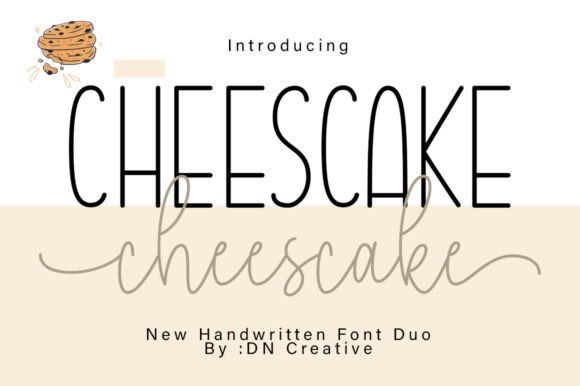
Introducing Cheescake Duo Font, the ultimate choice for those seeking the best font for tattoo script! Created by DN Creative, this stylish and delicate duo font (sans serif and script) will add a touch of romance to all your creative endeavors. With its wide spectrum of applications, from greeting cards to headlines, Cheescake Duo is the perfect companion for any project that needs a charming and captivating aesthetic.
What sets Cheescake Duo apart is its PUA encoding, which grants you seamless access to a plethora of amazing glyphs and ligatures. Unlocking an entire world of artistic possibilities, this font allows you to effortlessly elevate your designs and bring them to life in ways you've never imagined before.
Whether you're a tattoo artist looking to create mesmerizing script designs or a designer in search of a font that exudes elegance and allure, Cheescake Duo is here to fulfill your every need. Its versatility knows no bounds, making it an ideal choice for various occasions and styles.
With Cheescake Duo Font, you don't just download a font – you immerse yourself in a world of creativity, emotion, and endless possibilities. Let this font be your artistic companion, and watch your designs flourish with a touch of enchantment.